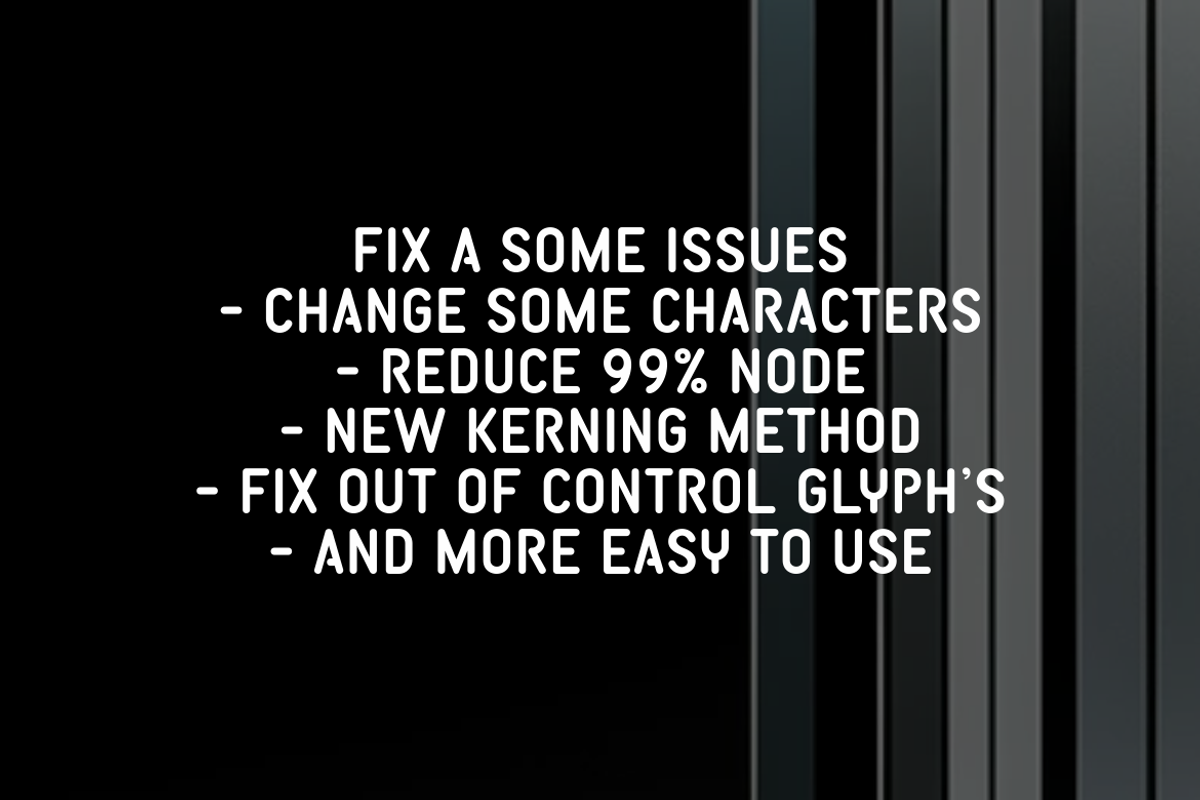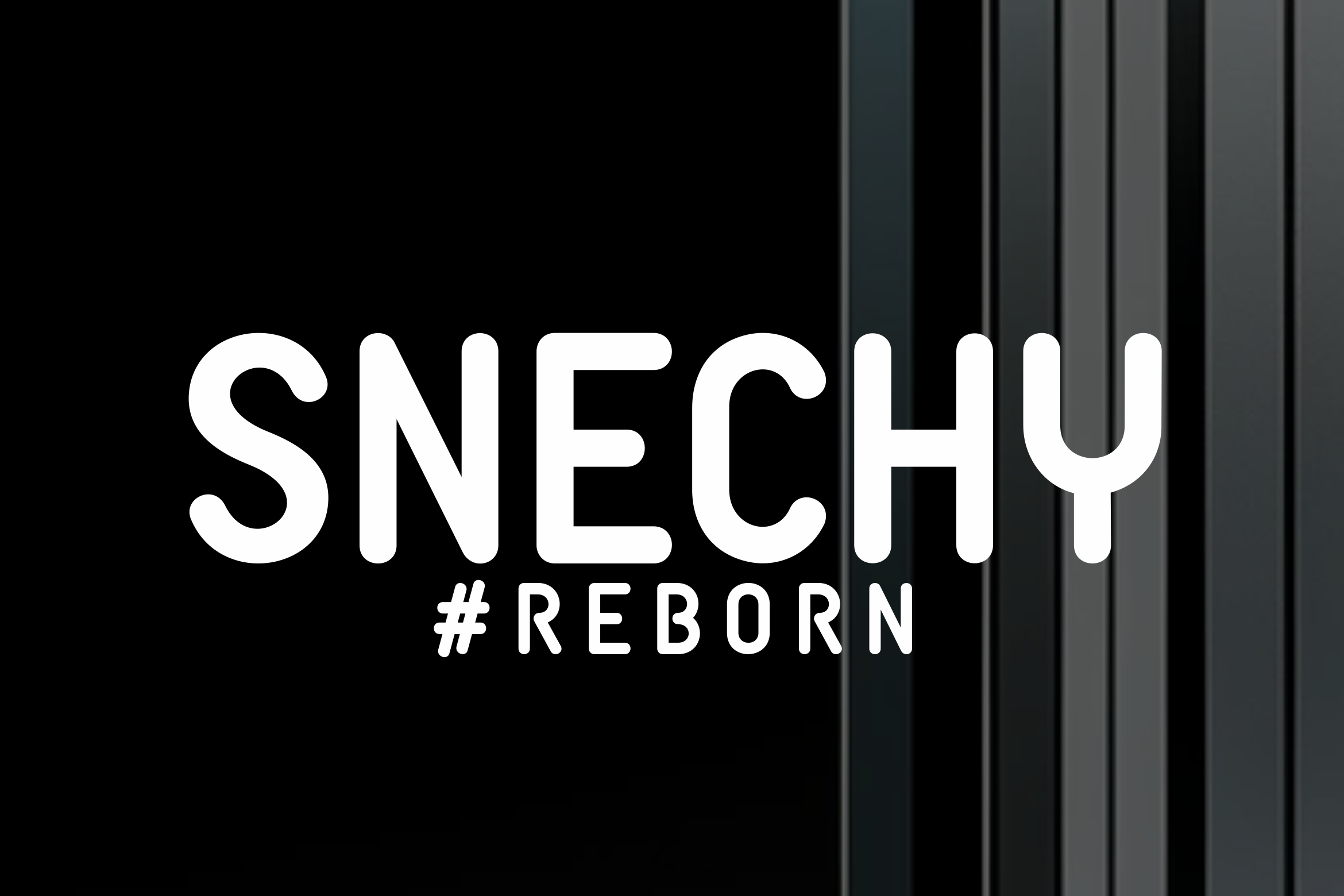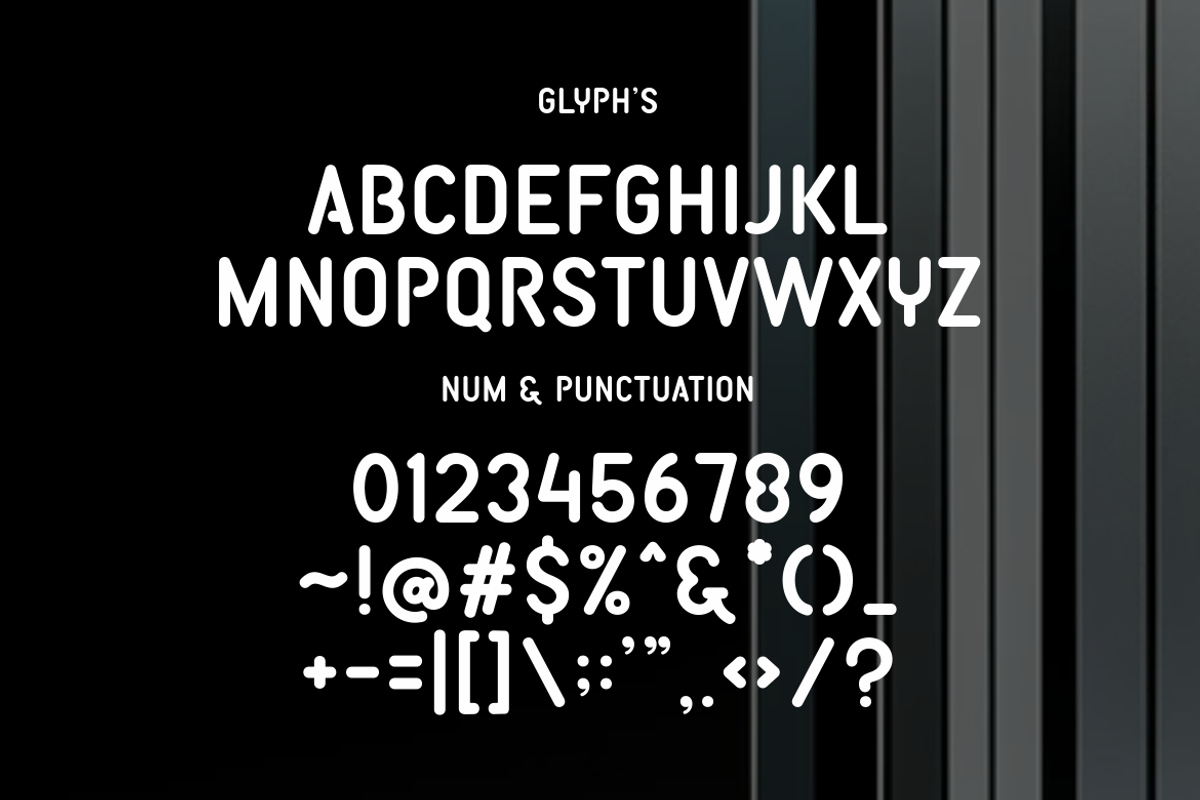
Snechy Reborn - Rounded Font
Experience typography evolution with New Snechy Font—refined, bold, and elegant. A perfected reimagining of Snechy Round!